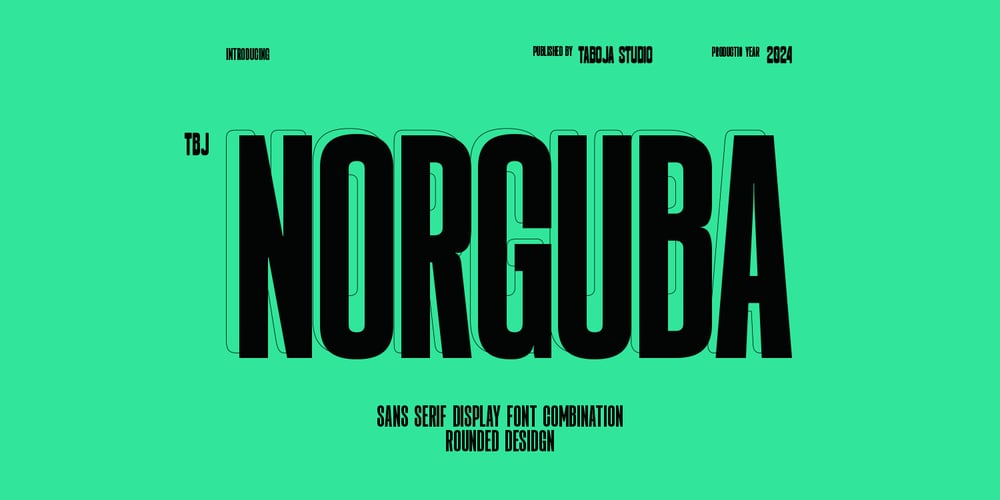
TBJ Norguba Condensed Sans
TBJ Norguba Condensed Sans font
TBJ Norguba Condensed Sans Font Family was designed by Yusilo Oktaprima Ardani and published by Taboja Studio. TBJ Norguba Condensed Sans contains 2 styles and family package options. Introducing TBJ Norguba, a versatile display type font that embodies the essence of contradictions. With its condensed regular style and joyful variable font feature, Norguba seamlessly blends elegance with a touch of awkwardness, offering a unique typographic experience. Its design strikes a delicate balance between youthfulness and sophistication, appealing to a wide range of audiences.Whether you’re aiming for a relaxed and sensuous vibe or seeking a more versatile and dynamic look, Norguba has got you covered. It’s perfect for brand identities with heart, packaging, and genuine, effortless messaging. Posters, billboards and motion graphics that fly off the screen. —–TBJ Norguba Includes:Uppercase Regular & JoyfulAlternates And LigaturesNumerals And PunctuationAccented charactersMultilingual SupportUnicode PUA Encoded—–We highly recommend using a program that supports OpenType features and Glyphs panels such as Adobe Illustrator, Adobe Photoshop CC, Adobe Indesign, or CorelDraw, so you can see and access all Glyph variations.While using this product, if you encounter any problem or spot something we may have missed, please don’t hesitate to drop us a message. We’d love to hear your feedbacks in order to further fine-tune our products.Stay creative and have a wonderful day.